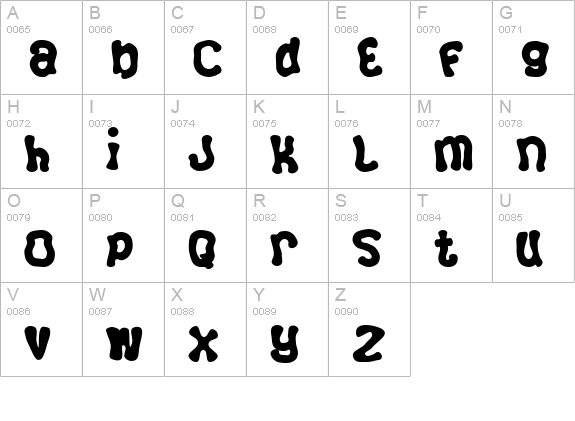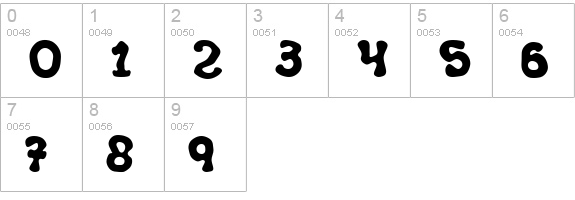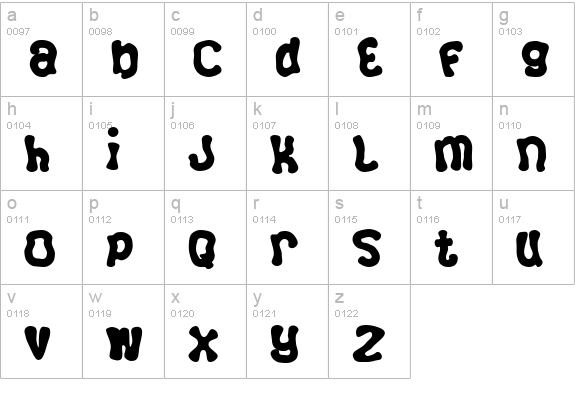
Squizzlie Font Details
Introducing Squizzlie font, a captivating and versatile typeface that will bring a touch of whimsy and playfulness to your design projects. With its unique blend of curvaceous letterforms and energetic strokes, Squizzlie font exudes a sense of liveliness and spontaneity that is sure to captivate your audience. This remarkable font is not only visually appealing, but also incredibly versatile. Whether you're working on a branding project, creating eye-catching headlines, or designing playful invitations, Squizzlie font will effortlessly add a delightful and joyful flair to your creations. Its dynamic and expressive letterforms give you the freedom to explore various design possibilities and truly make your work stand out. But the best part? Squizzlie font is freely available to download at FontsMarket.com. Yes, you read that right - you can get your hands on this remarkable typeface without spending a dime. With its generous offer, FontsMarket.com allows you to unleash your creativity without any limitations, making Squizzlie font accessible to everyone. So why wait? Embrace the boundless creativity and endless possibilities that Squizzlie font has to offer. Download it now at FontsMarket.com and infuse your designs with a dose of charm, vibrancy, and a touch of whimsy. Give your projects the unique personality they deserve with Squizzlie font, the free font that will leave a lasting impression.